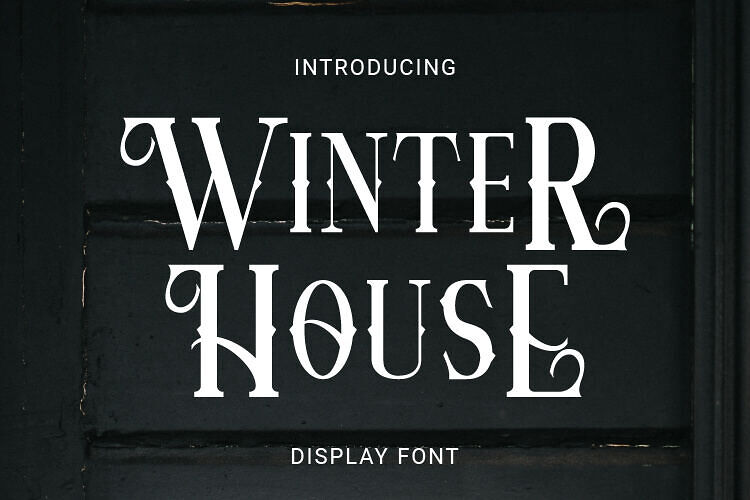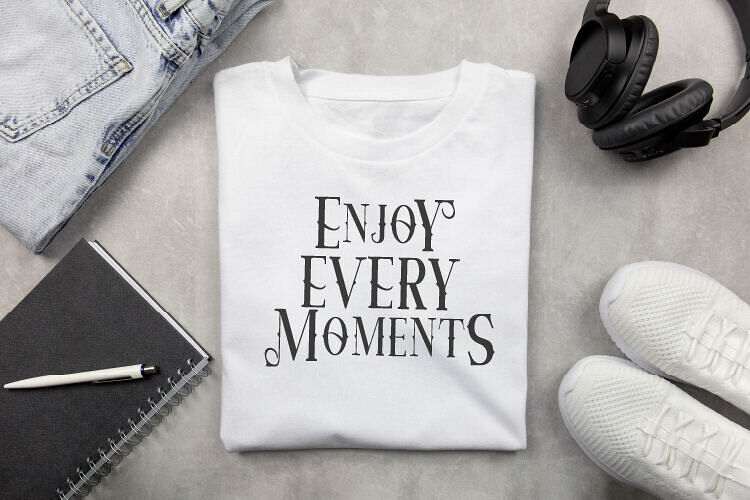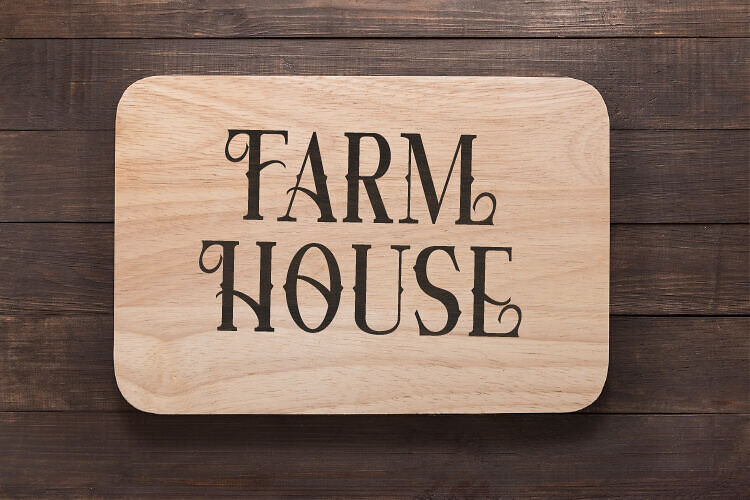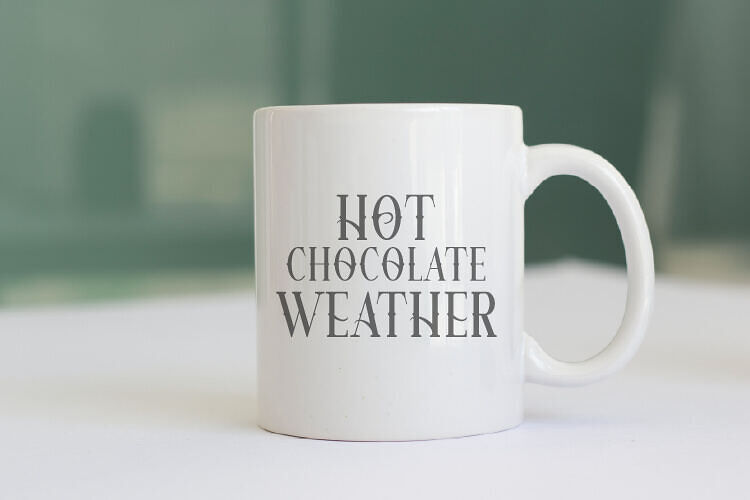
Winter House Font
Winter House is a modern display font. Its elegant and cool look makes it the perfect choice for logos, branding, invitations, stationery, wedding designs, social media posts, and so much more. Don’t hesitate to add it to your creative projects, and be amazed by its fantastic results! This font is PUA encoded, so you can easily access all the glyphs!